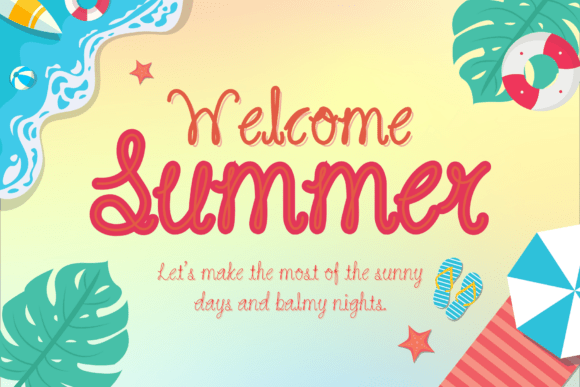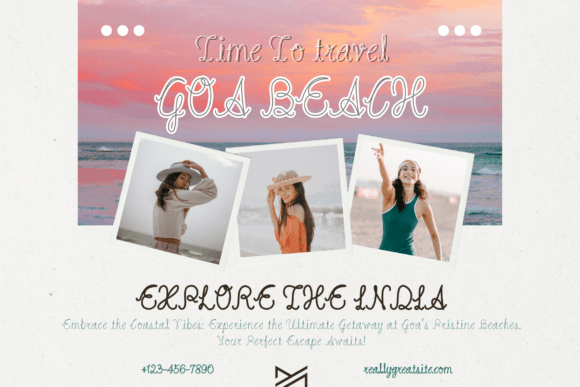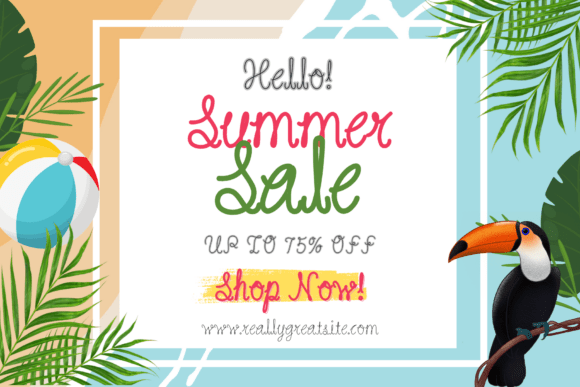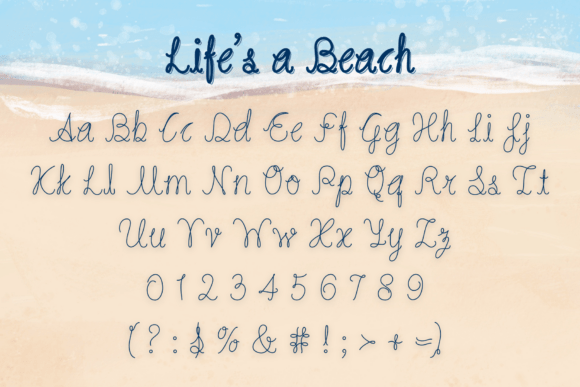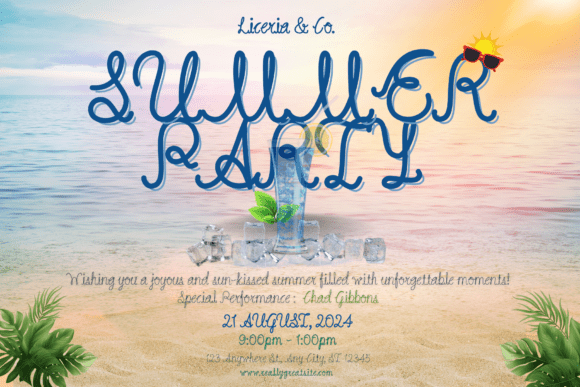
Introduction to Life‘s a Beach Font
Lifețs a Beach is inspired by summer vacations, which of course many people think of relaxing at the sea, beautiful beaches, and various activities.
It is suitable to be a good memory of relaxation and to bring back memories every time you want to relax Those good, fun, and relaxing memories are conveyed through this font.
Key Features of Life‘s a Beach Font